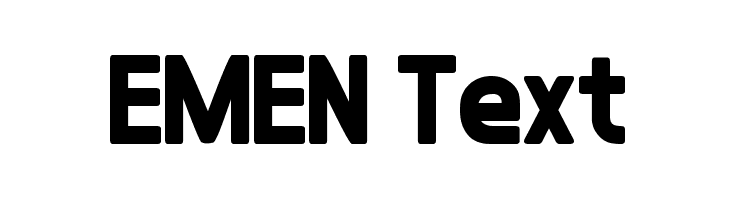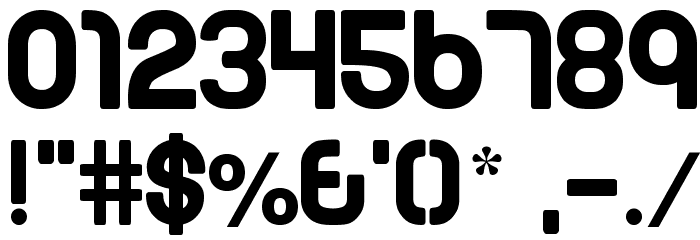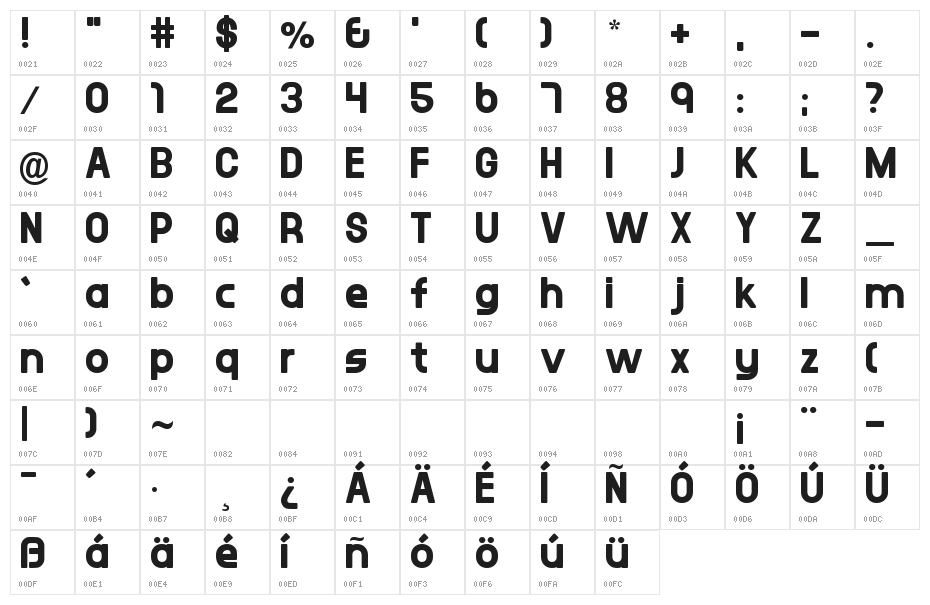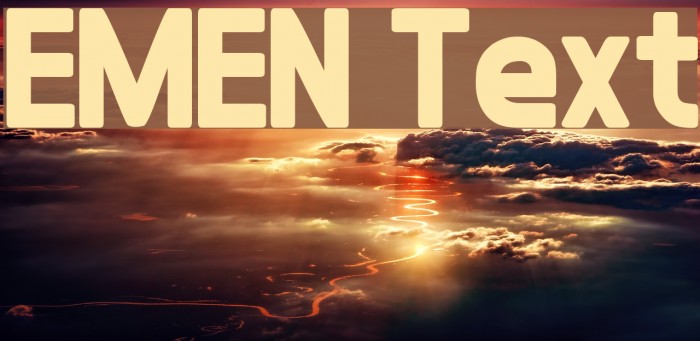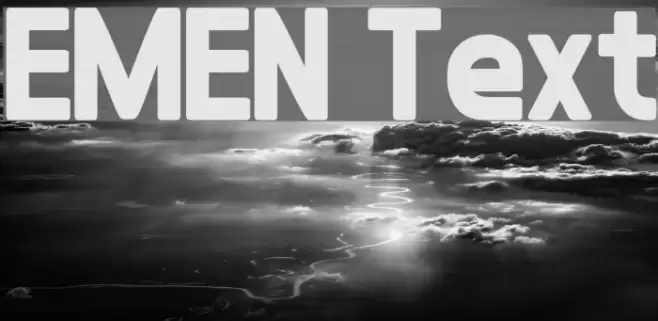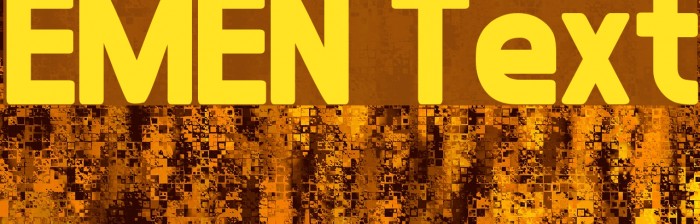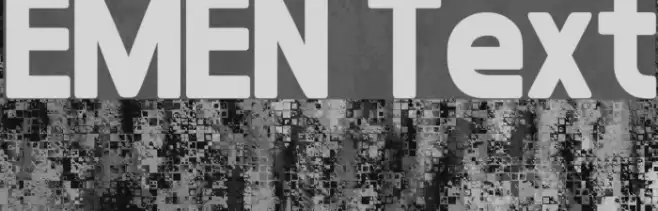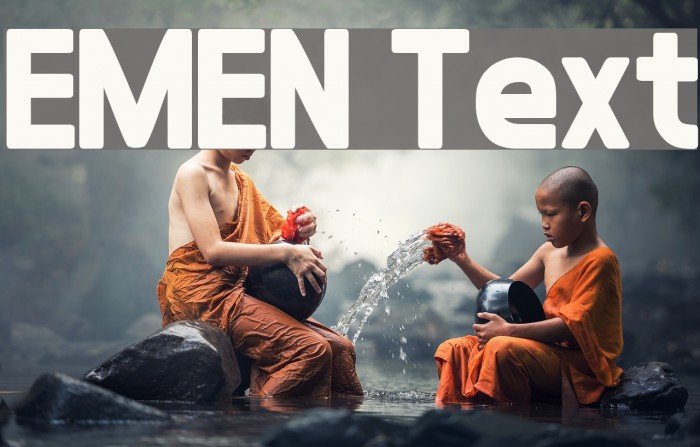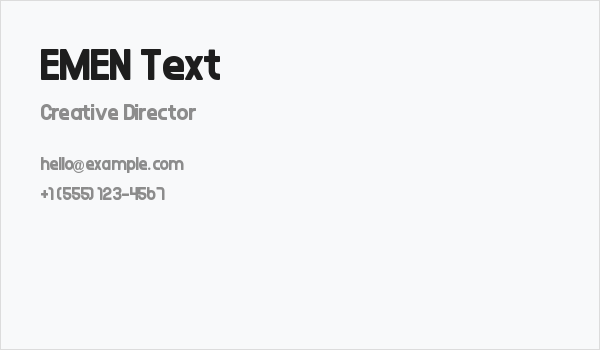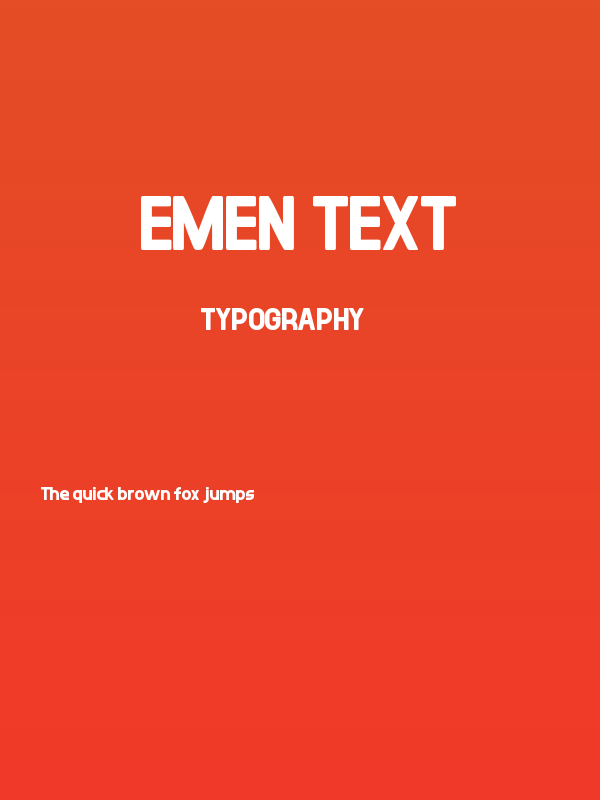
EMEN Text Font
EMEN Text Description
This font features bold, rounded characters with a modern and friendly appearance. The uppercase letters are strong and impactful, while the lowercase letters maintain a consistent style with smooth curves and a slightly condensed form. The numerals are clear and easy to read, matching the overall boldness of the alphabet. Special characters are well-integrated, maintaining the rounded and bold aesthetic. The font's design is versatile, suitable for various applications where a contemporary and approachable look is desired.
| Proposed Projects | Ideal for branding, advertising, packaging, and digital media projects that require a modern and approachable look. |